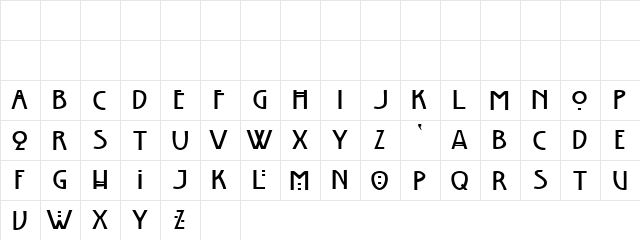
Chelsea Studio Regular
Design Context for Chelsea Studio Typeface
Chelsea Studio is a composed and adaptable typeface that performs quietly and consistently across a wide range of design contexts.
Pro Tip: Use Chelsea Studio in both headline and body roles to test its range before committing to a single application.